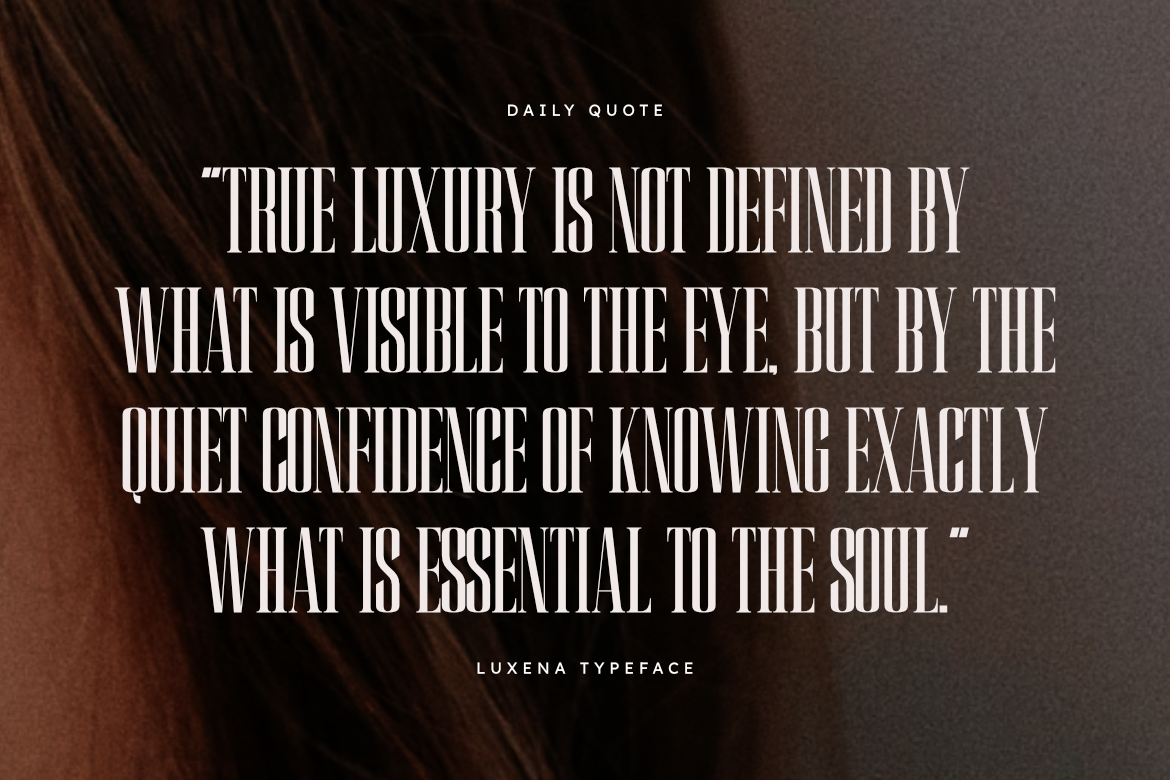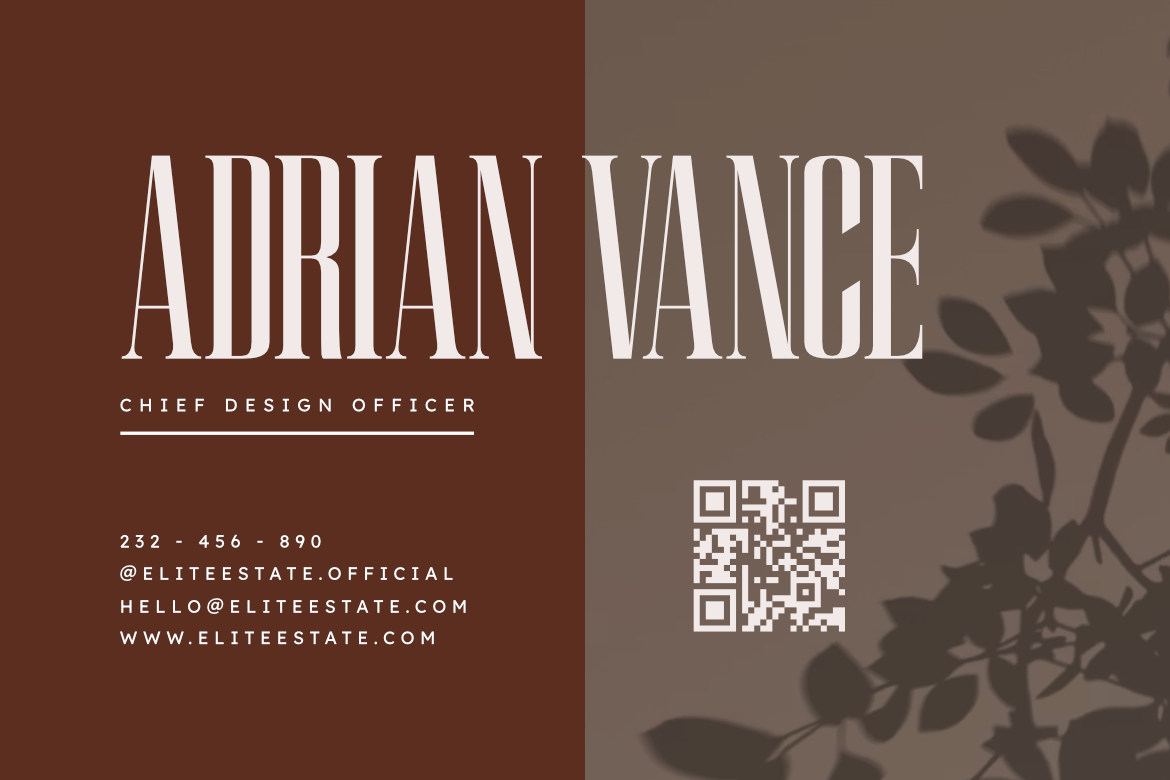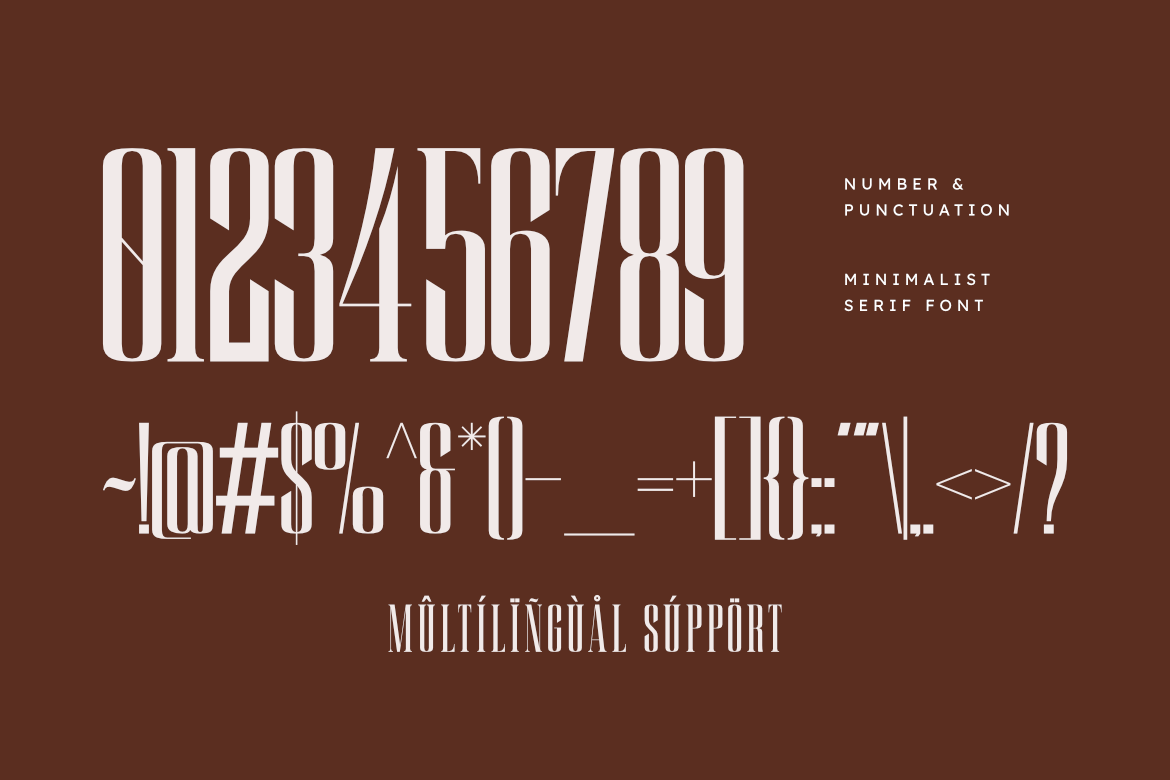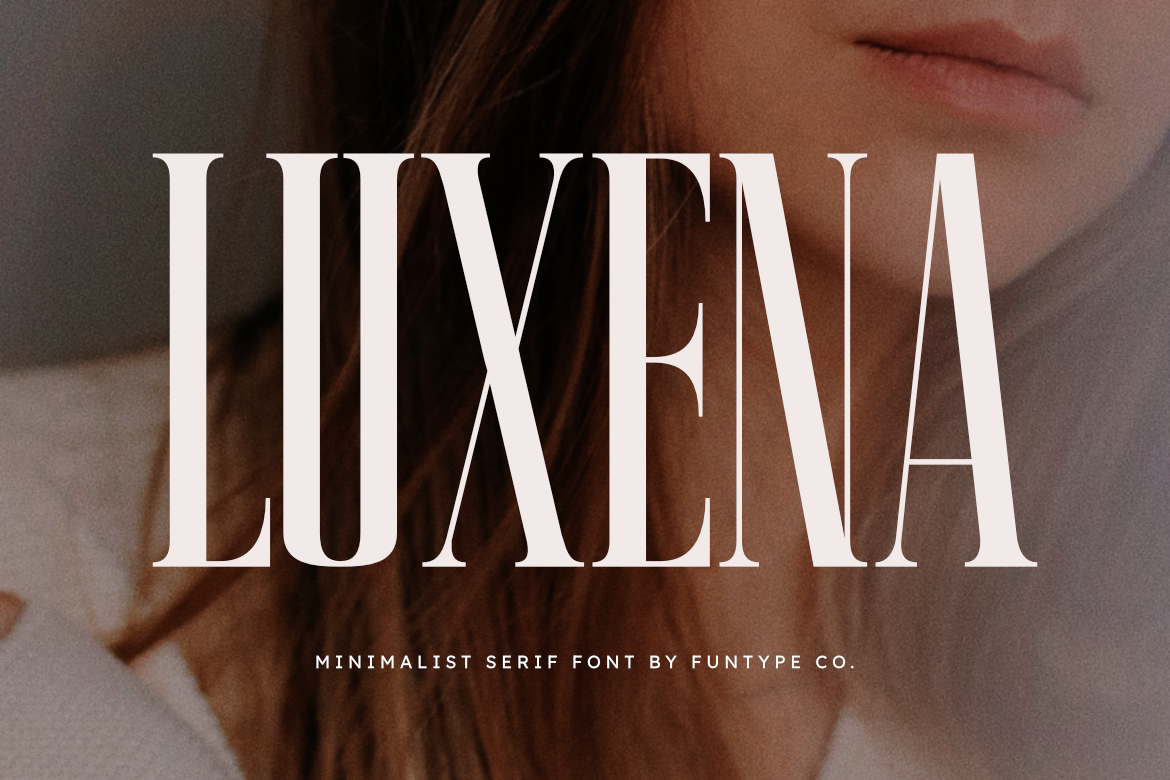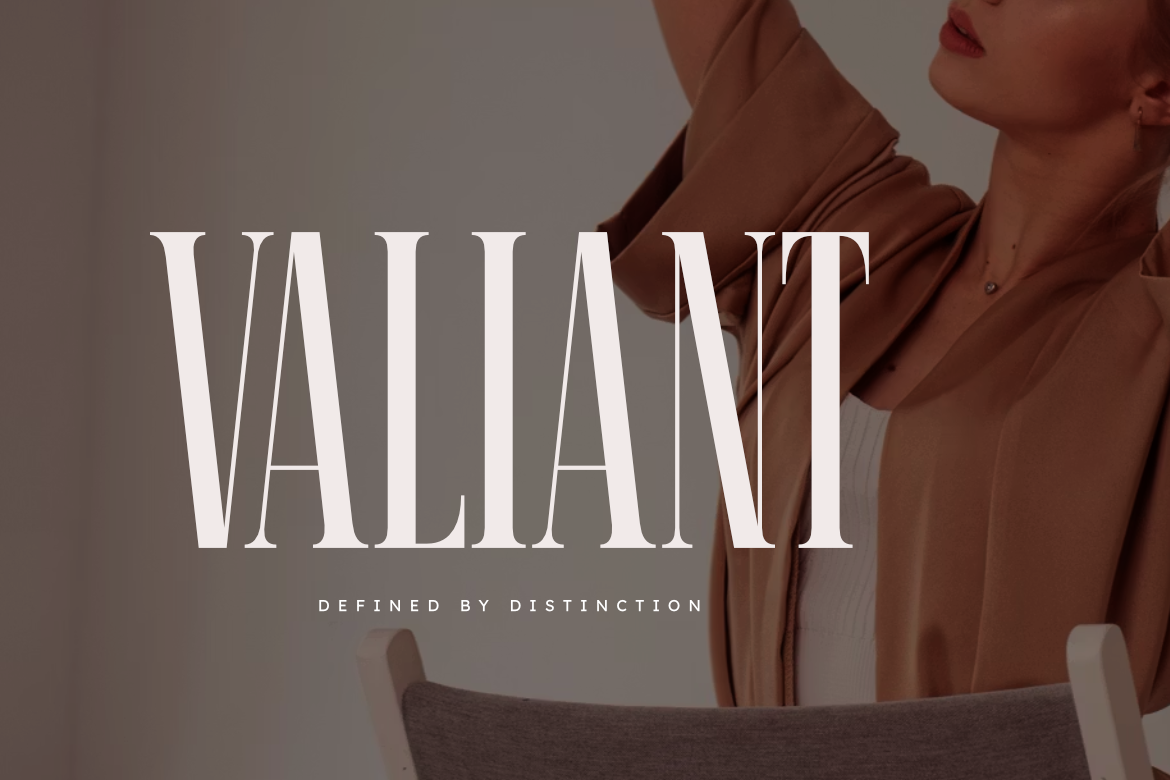
Luxena
Luxena is a sophisticated and minimalist serif font, thoughtfully designed to capture the essence of luxury charm and contemporary storytelling. With its beautifully elongated vertical structure and clean geometric serifs, Luxena offers a professional aesthetic that brings a touch of refined authority to any creative project.
This font is the ideal choice for designers looking to add a professional yet high-impact touch to their work. Whether you are crafting a striking lifestyle brand identity, a sleek fashion logo, or elegant editorial layouts, Luxena provides a seamless blend of modern minimalism and timeless luxury.
Main Features:
- Minimalist Serif Design: Optimized for a clean, modern, and professional look.
- Refined Elongated Structure: Meticulously crafted for a tall, elegant appearance and superior legibility.
- Commanding Presence: Perfect for headlines, editorial titles, and high-end logos.
- Professional Aesthetic: High-end finish tailored for modern fashion, beauty, and premium lifestyle branding.
Best Used For: High-end luxury branding, editorial fashion magazines, lifestyle logos, premium cosmetics packaging, elegant corporate identities, and sophisticated web headers.